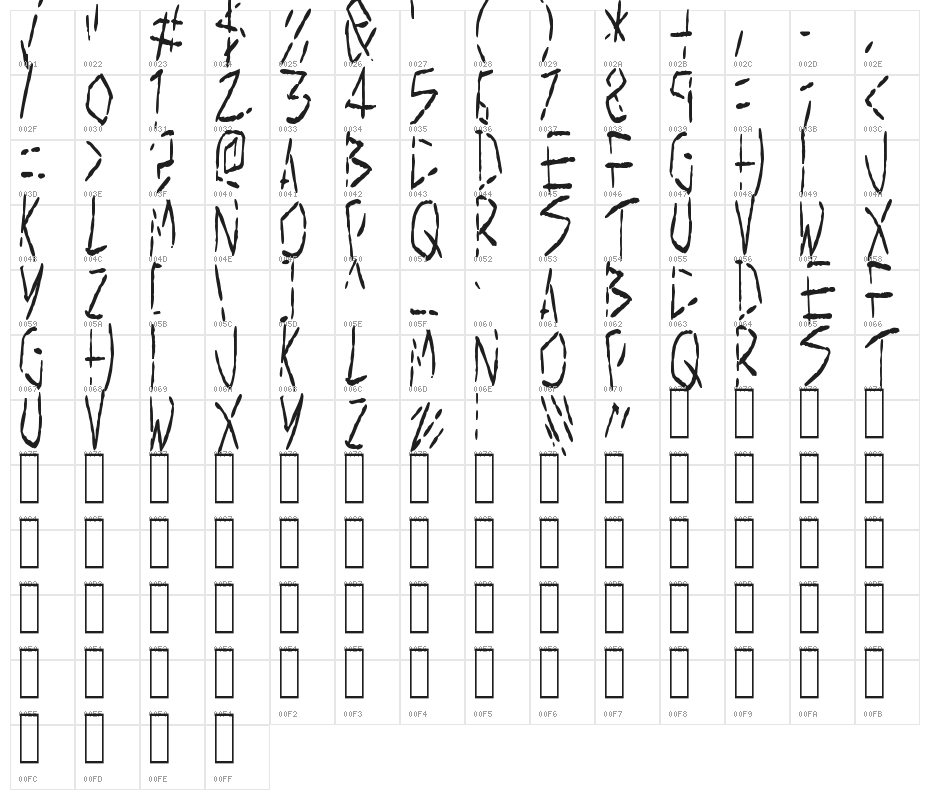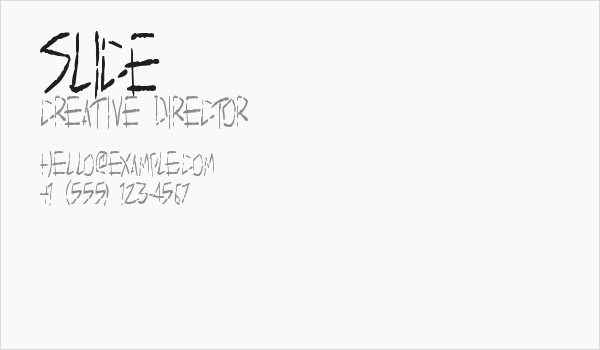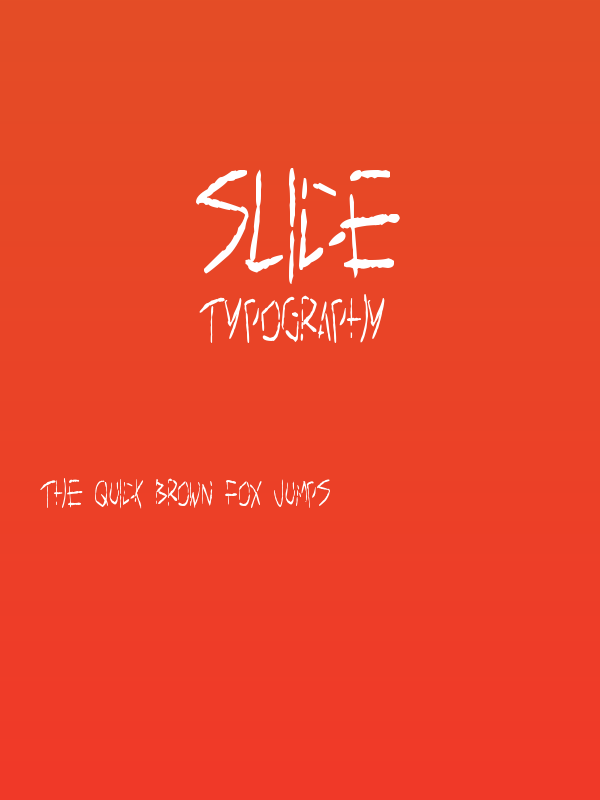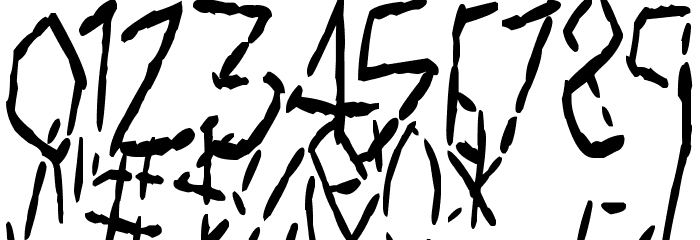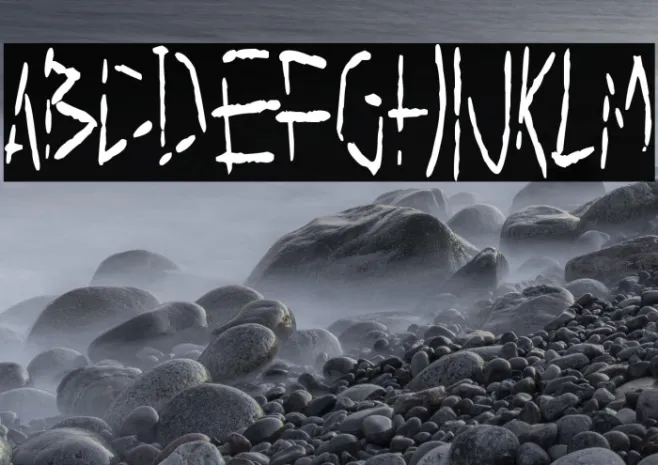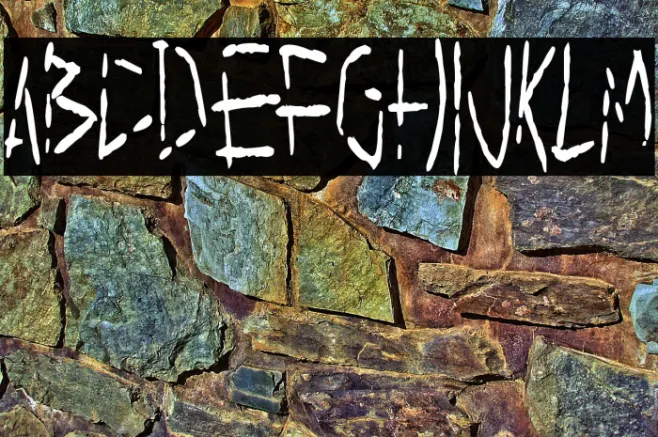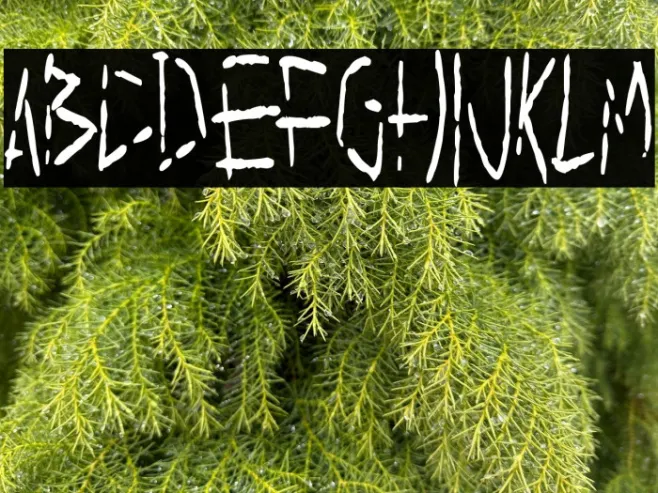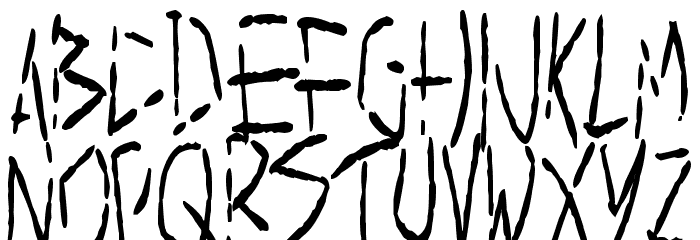
Slice Font
Slice Description
This font features a highly stylized, hand-drawn appearance with irregular, jagged strokes that give it an edgy and artistic feel. The characters are unevenly weighted, with some lines appearing thicker than others, contributing to a sense of dynamic movement. The uppercase and lowercase letters maintain a consistent style, with angular forms and sharp edges. Numbers and special characters follow the same design principles, ensuring uniformity across the font. The overall look is raw and expressive, making it suitable for creative projects that require a bold and unconventional typeface.
| Overall Style | Artistic, Edgy |
| Use Case | Logos, Posters, Artistic projects |
| Proposed Projects | Ideal for album covers, graffiti art, edgy branding, and creative posters. |